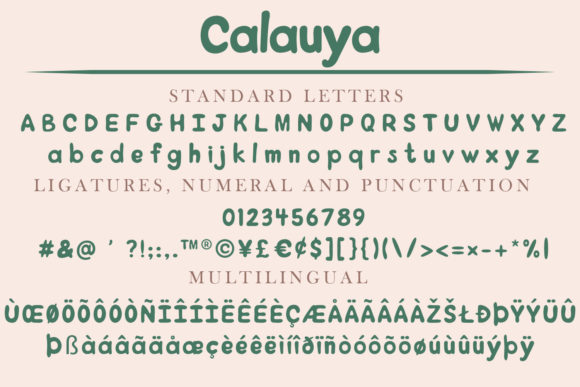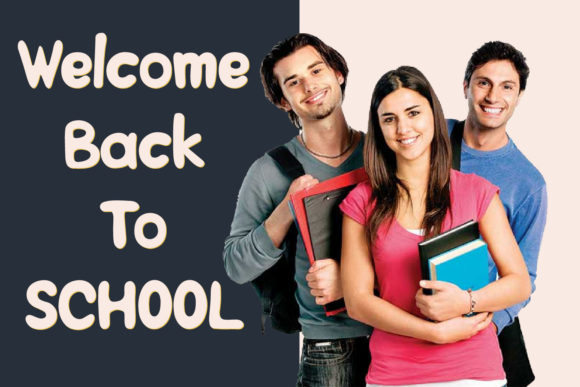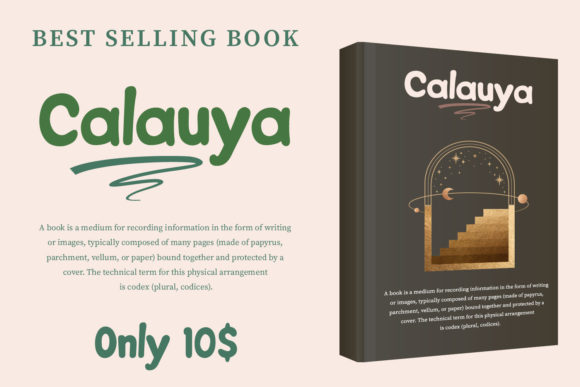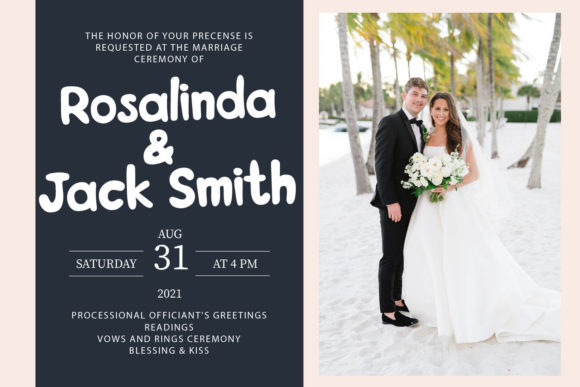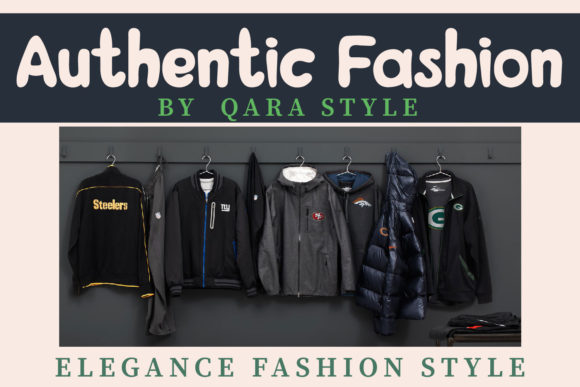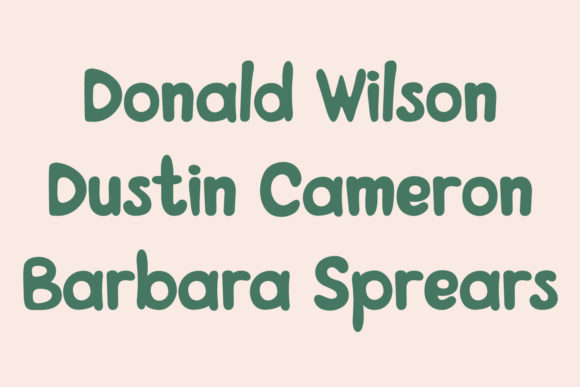
Introduction to Calauya Font
Calauya is a cute, clean and adaptable display font.
It will elevate a wide range of crafting ideas, from cards, to branding, labels and much more .
Key Features of Calauya Font